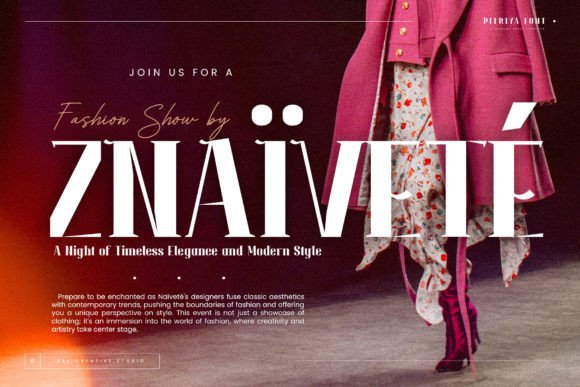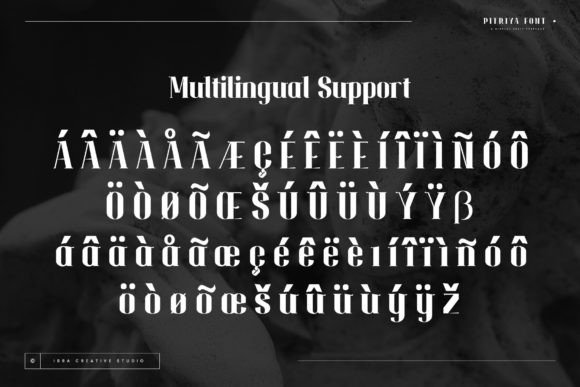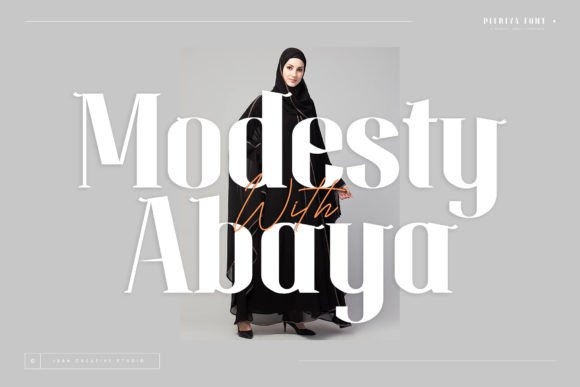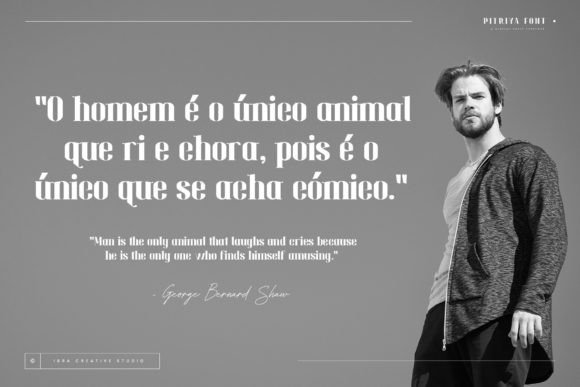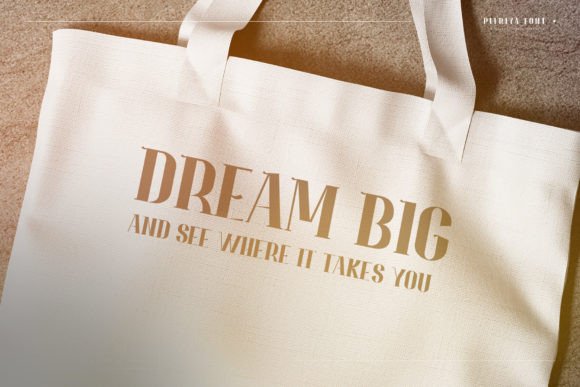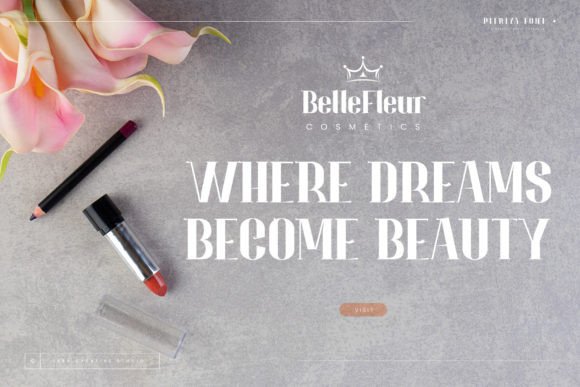
Introduction to Pitriya Font
Pitriya is a captivating display serif typeface that effortlessly blends classic elegance with a modern twist.
Its unique character lies in the harmonious balance between thick and thin strokes, creating a distinct sense of refinement and sophistication Each letter is meticulously crafted with precision and ornate details, making Pitriya a perfect choice for high-end branding, editorial design, and formal invitations.